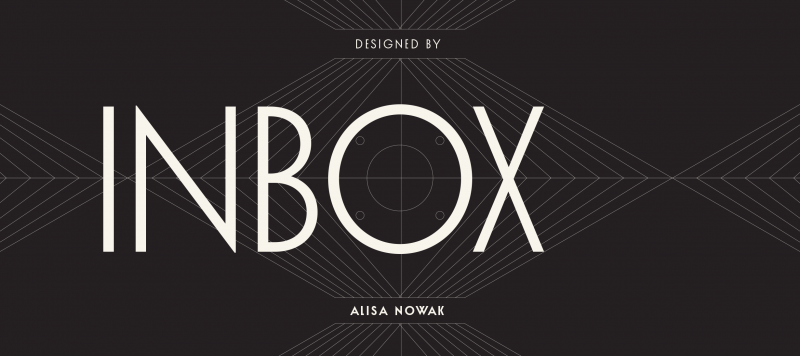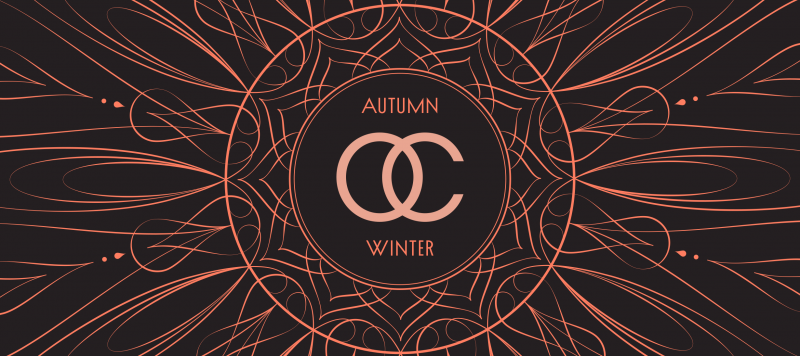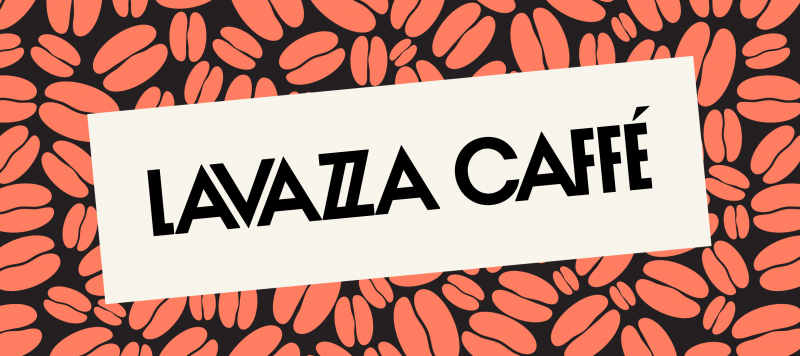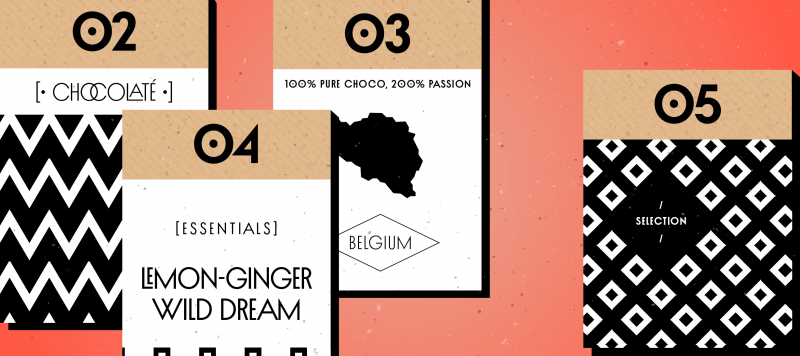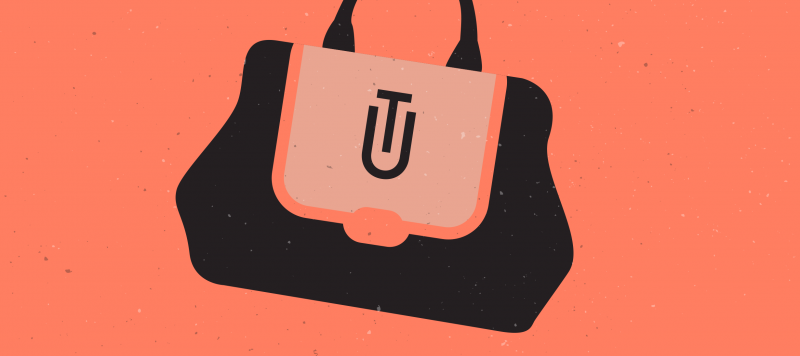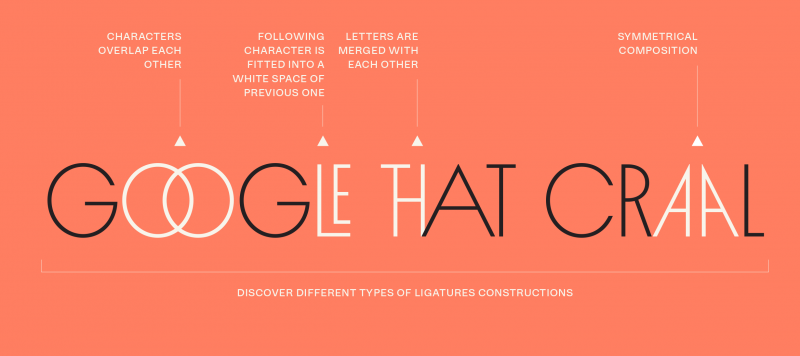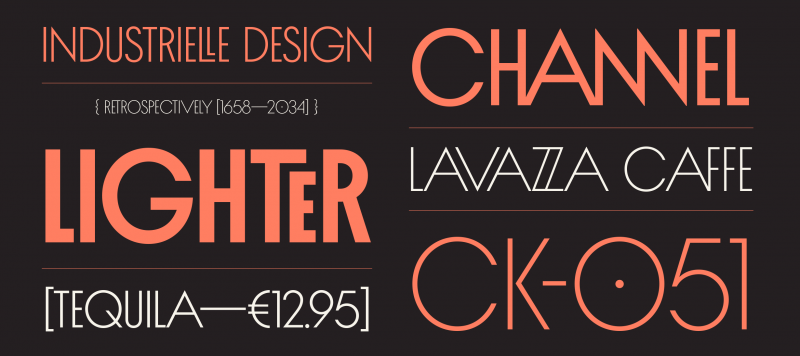
Inbox is a whimsical and decorative display face offering a new spin on the geometric sans genre. It is a great selection for headlines and logotypes. Each font in the family includes a wide variety of eye-catching ligatures, as well as stylistic alternates. The typeface is all-caps and its letterforms are monolinear. Inbox’s standard version of the ‘O’ looks like a circle; the zero, which is similar, has a dot inside its counter. The ‘A’, ‘V’, and ‘W’ are built out of triangles, but several other letters are very narrow. In addition to simple horizontal couplings, Inbox’s many ligatures include designs where one letter is overlapping another, or where one letter has been placed inside a second one. Some alternate glyphs are skewed to the left or to the right, while others feature letters reduced in size and shifted upwards or downwards.
Family Name Inbox
Designer(s) Alisa Nowak
Available Style Thin, Light, Regular, Bold, Black
Classification Display, Sans